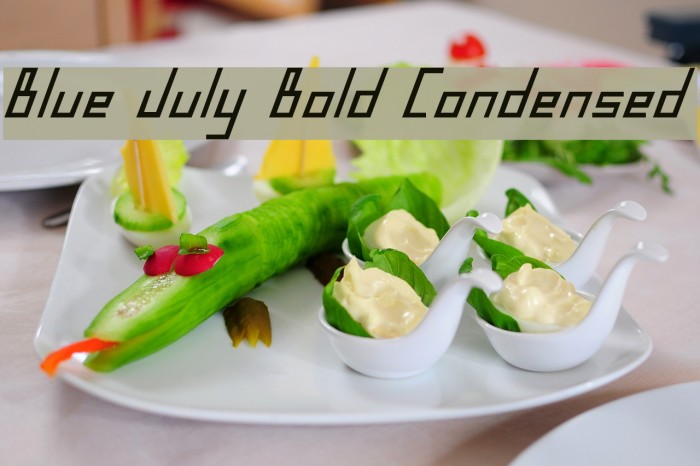
Blue July Bold Condensed Font
This font features a bold and condensed style with a modern, angular design. The uppercase letters are sharply defined with a geometric flair, while the lowercase letters maintain a consistent angularity that complements the uppercase set. The numerals and special characters follow the same design principles, creating a cohesive and striking appearance. The font's condensed width allows for efficient use of space, making it ideal for headlines or titles where impact is essential. The overall style is distinctly modern, with a hint of futuristic influence, making it suitable for contemporary design projects.
A bold, condensed, and angular font with a modern, geometric style.
- Proposed Projects: Ideal for modern branding, futuristic posters, tech-related designs, and impactful headlines.